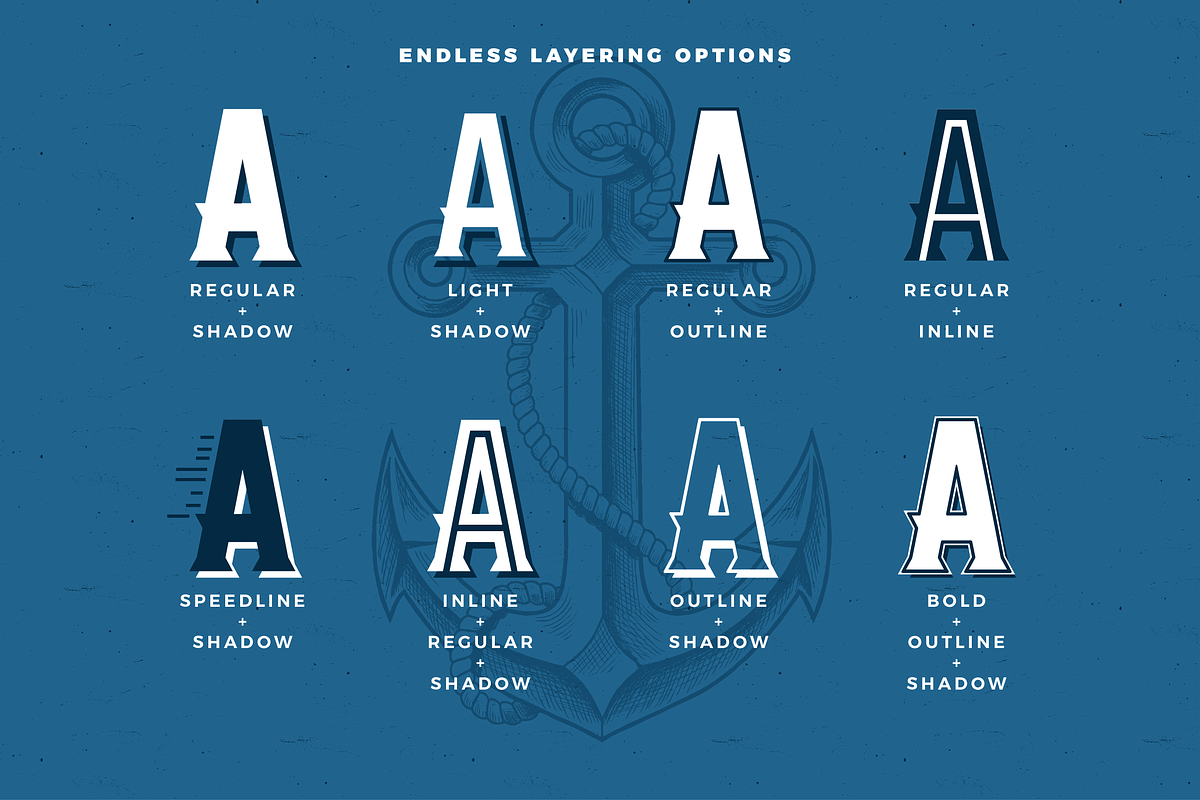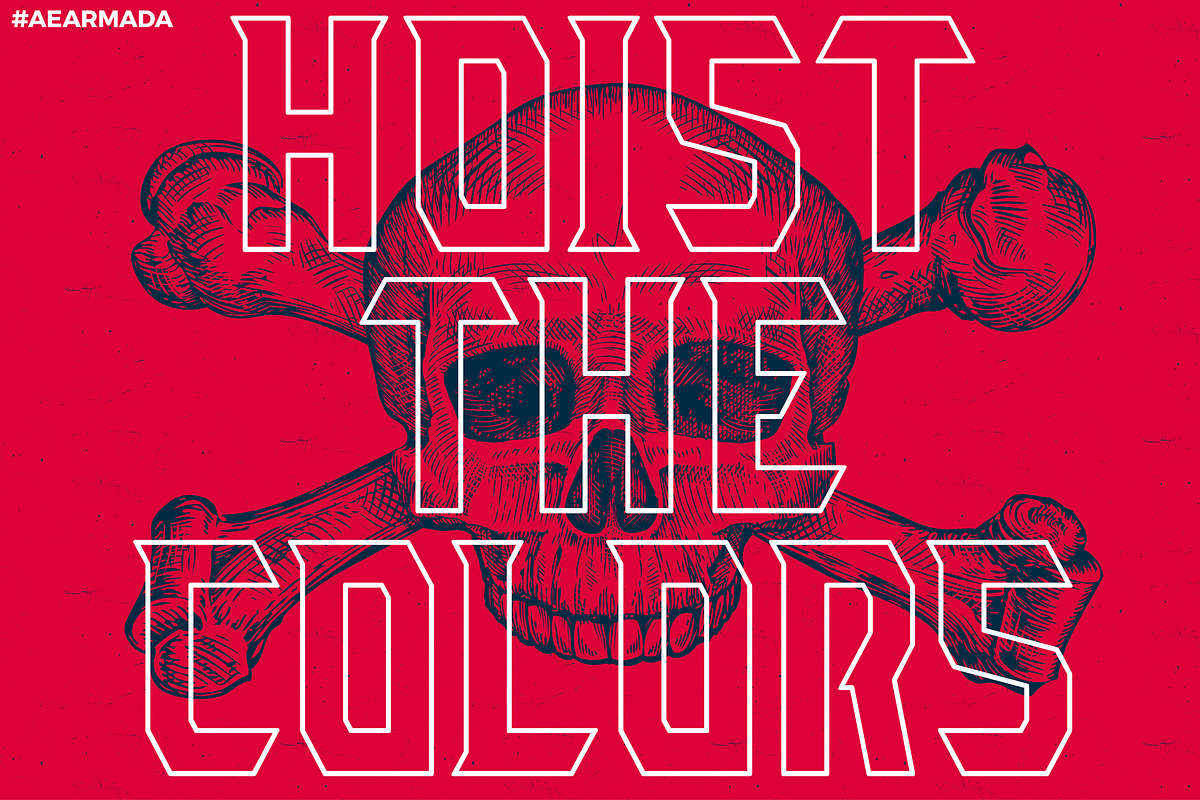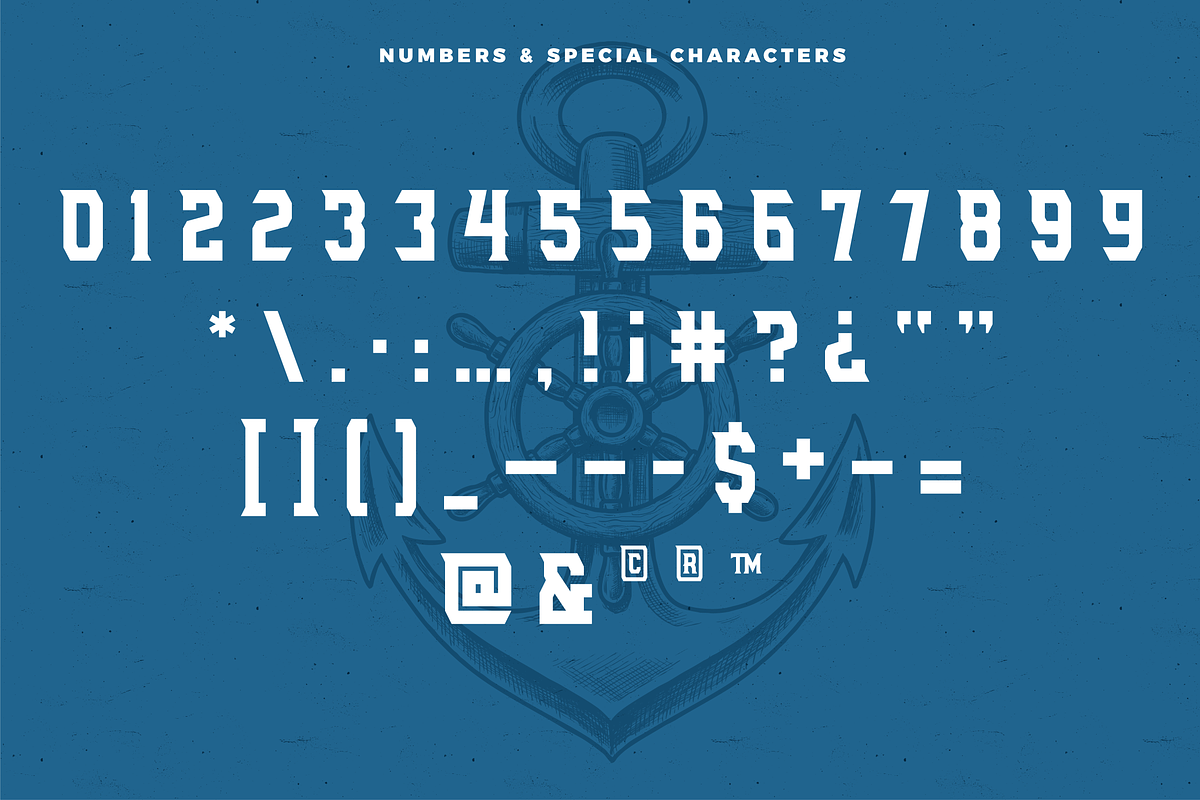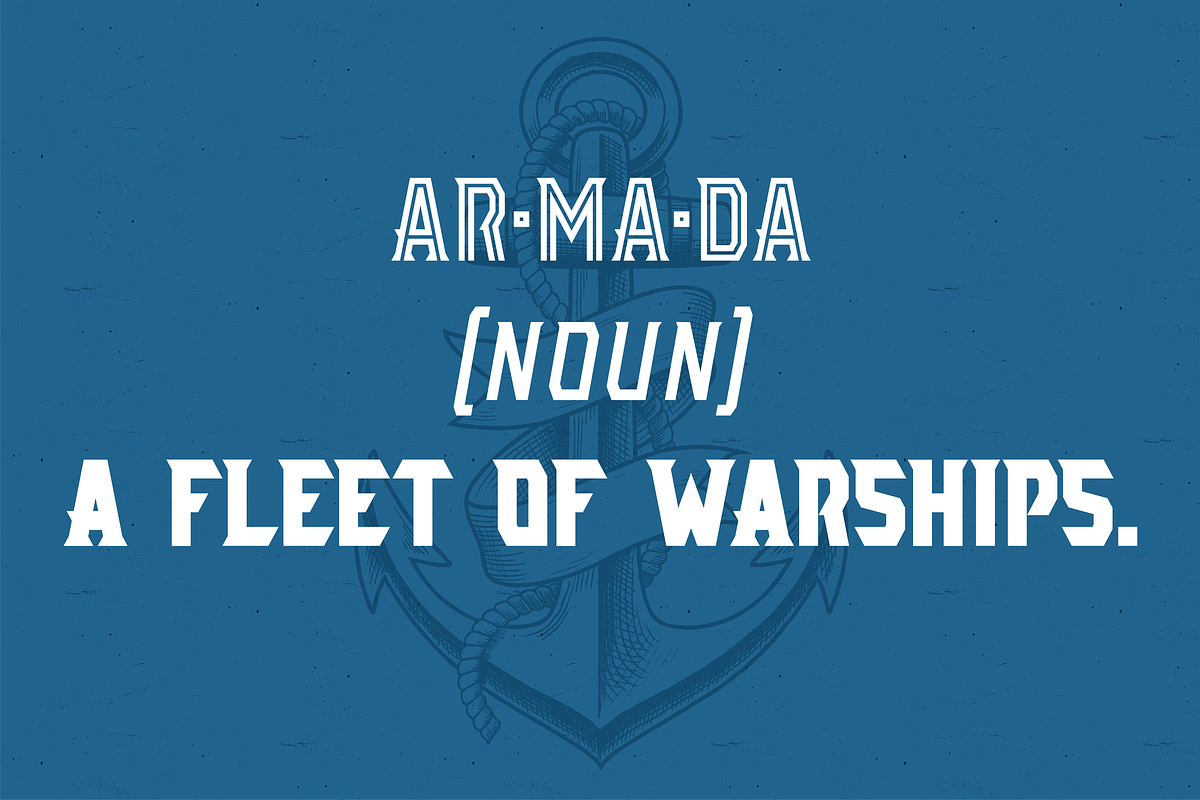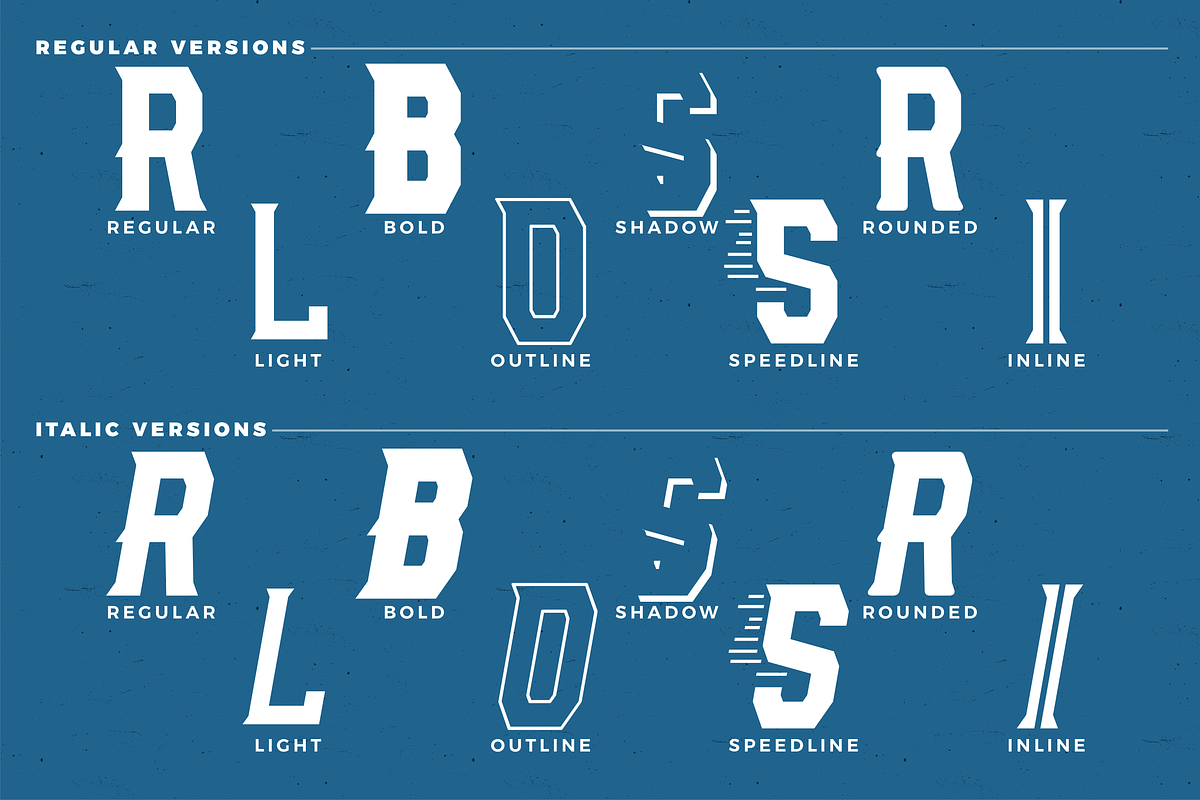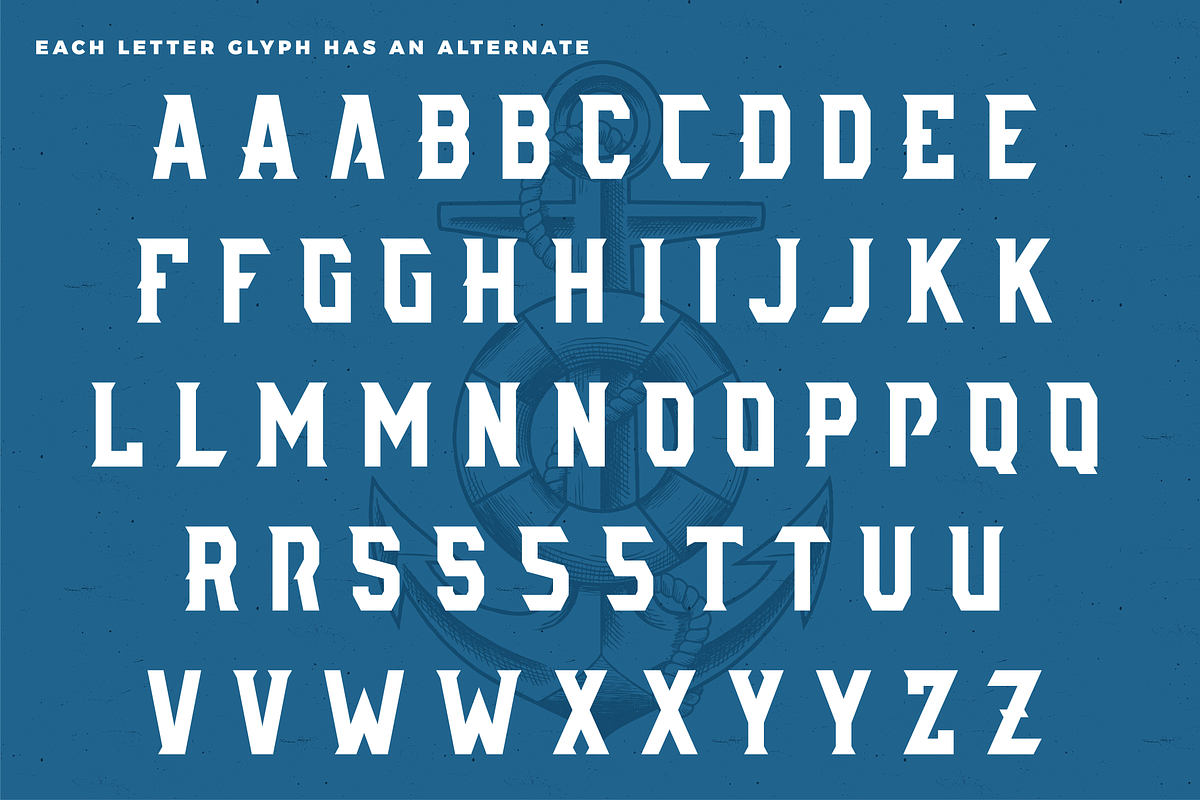
AE Armada Display Typeface
AE Armada Display Typeface by American Eargle is a font selected for branding, posters, packaging, typography.
- Plus, each glyph has an uppercase version & lowercase alternate for ease of use.
- AE Armada Light
- AE Armada Light Italic
- AE Armada Regular
- AE Armada Italic
- AE Armada Bold
- AE Armada Bold Italic
- AE Armada Inline
- AE Armada Outline
- AE Armada Rounded
- AE Armada Shadow
AE Armada Display Typeface by American Eargle fits naturally into Branding, posters, packaging, typography.